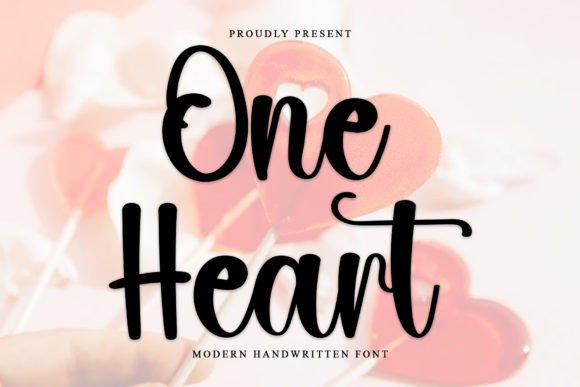
Embark on an extraordinary literary voyage with One Heart Font, a calligraphy-inspired masterpiece that will transform your book designs into captivating works of art. One Heart's graceful curves and elegant lines capture the essence of timeless beauty, enhancing every word with a touch of sophistication.
Dive into the depths of your creativity and let One Heart's enchanting characters guide you. This meticulously crafted font boasts a harmonious balance and captivating variation, ensuring that your words dance across the page with effortless grace. Witness the transformation as ordinary text morphs into a visual symphony, captivating readers from the very first page.
One Heart's compatibility with PUA encoding unlocks a world of possibilities. Access an array of stunning glyphs and ligatures with unparalleled ease, unleashing your imagination and allowing your designs to soar to new heights. Experience the joy of effortless creativity as you craft book covers, posters, branding materials, and social media graphics that exude elegance and charm.
With One Heart by your side, embark on a creative journey where every word carries weight, every phrase captivates, and every design tells a story. Its timeless appeal transcends trends, ensuring that your creations remain relevant and captivating for years to come.
One Heart Font: Where beauty meets brilliance, where words come alive, and where your creative vision knows no bounds. Let your words take center stage, adorned in the timeless beauty of One Heart.